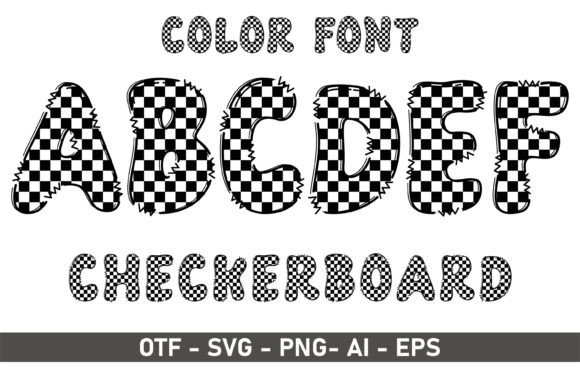
Checker Board Font: A Playful and Artistic Addition to Your Designs
The Checker Board Font is a unique and eye-catching typeface that can add a playful and artistic touch to various designs. Its distinctive checker board pattern makes it an excellent choice for projects that aim to convey a sense of fun and creativity. In this article, we will explore the features and uses of the Checker Board Font, as well as its compatibility with different design programs and cutting machines.
A Font for Playful and Artistic Designs
The Checker Board Font is often used in designs that aim to convey a playful or artistic feel, such as children’s books, posters, invitations, greeting cards, and more. This font is particularly suitable for children’s books, as it is whimsical, colorful, and easy to read, creating an engaging reading experience for young audiences. The font’s playful nature makes it an excellent choice for designs that require a lighthearted and creative approach.
Features of the Checker Board Font
Tips for Using the Checker Board Font
Here are some tips for using the Checker Board Font in your designs:
- Use the font in designs that require a playful and artistic touch, such as children’s books, posters, and invitations.
- Experiment with different colors and patterns to create unique and eye-catching designs.
The Checker Board Font is a unique and eye-catching typeface that can add a playful and artistic touch to various designs. Its compatibility with different design programs and cutting machines makes it an excellent choice for crafters and makers. By following the tips and guidelines outlined in this article, you can create stunning designs that showcase the Checker Board Font’s playful and artistic nature.